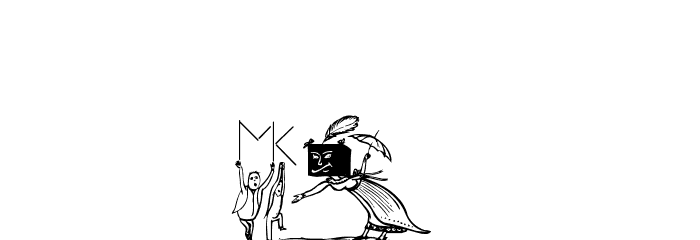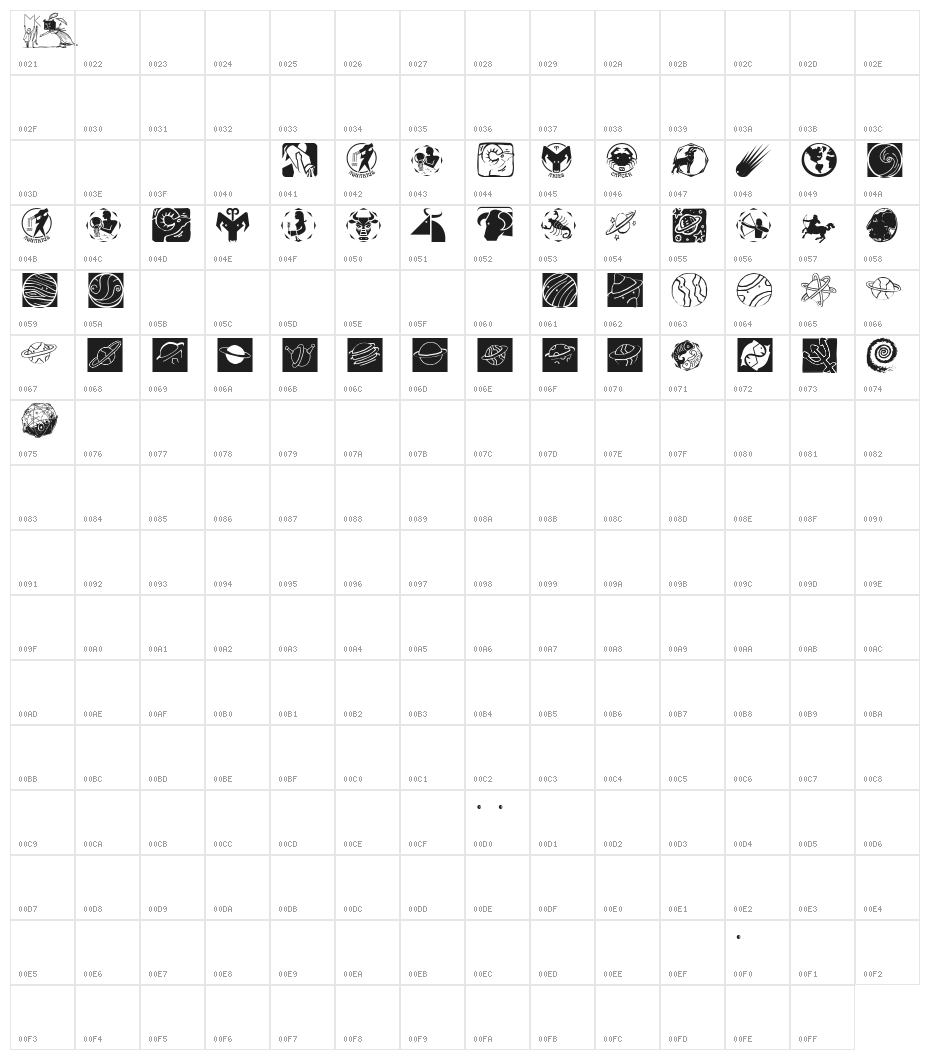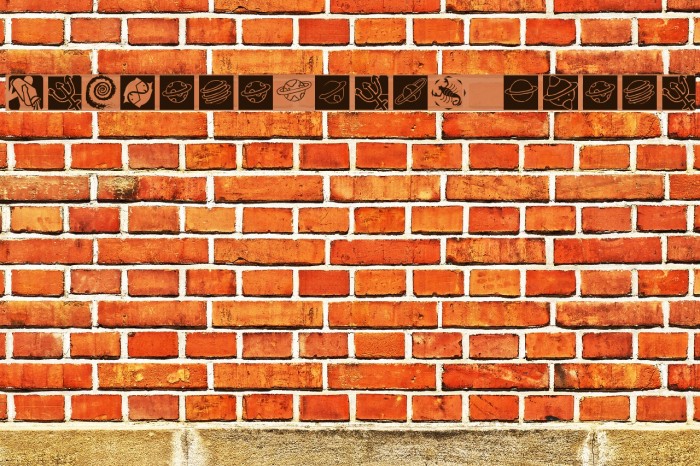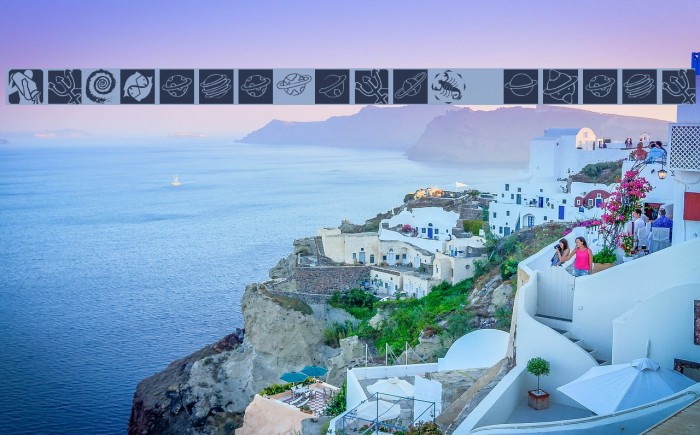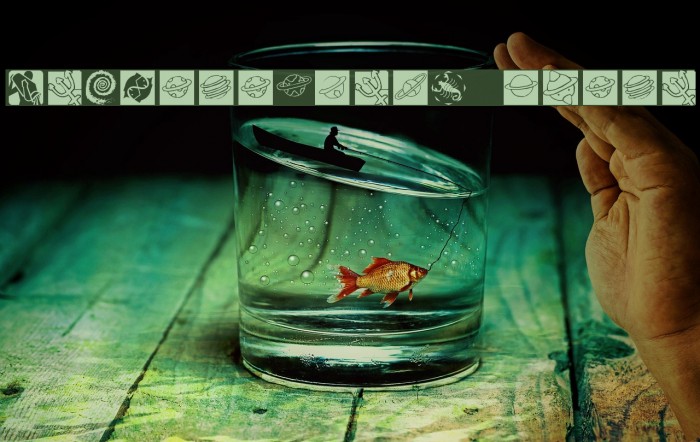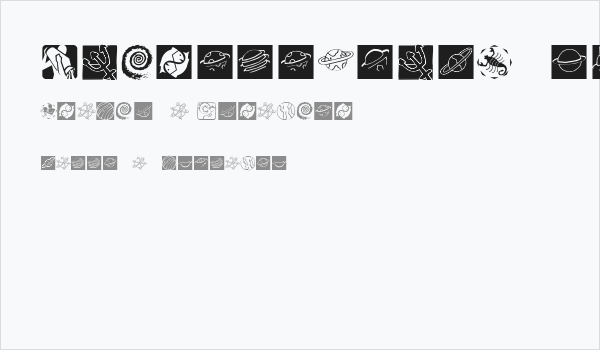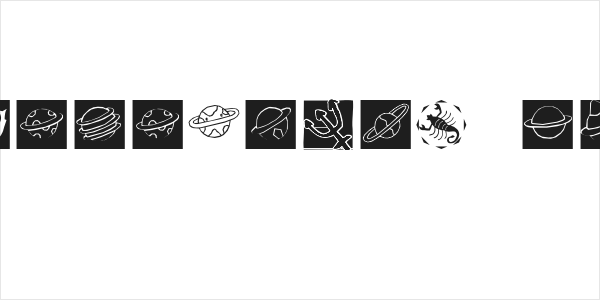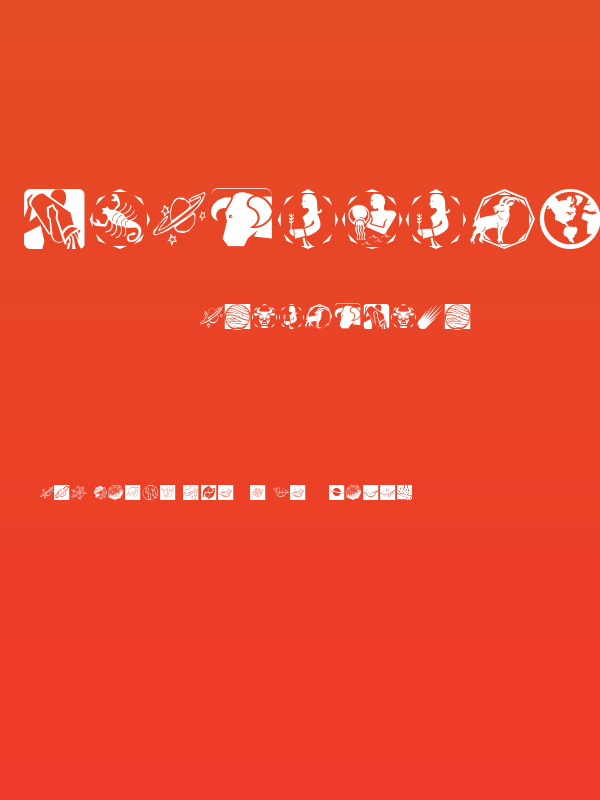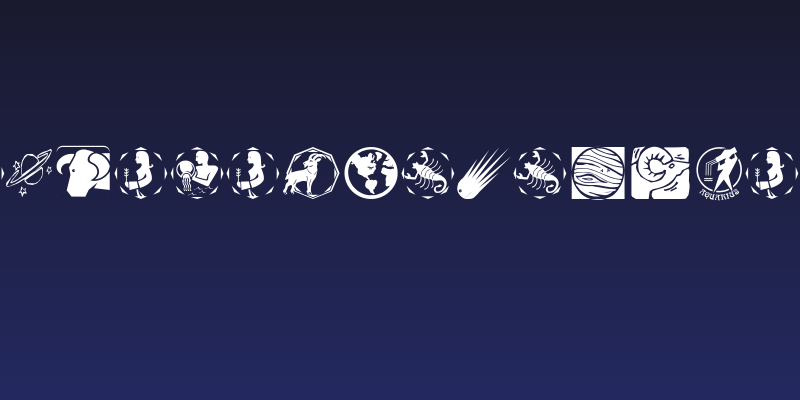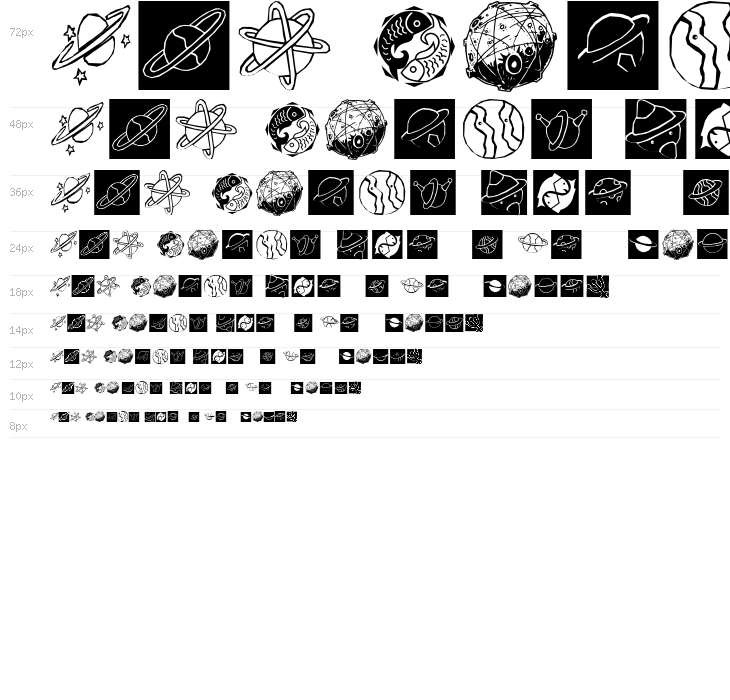
AstrologishSymbols Font
AstrologishSymbols Description
A decorative dingbat font featuring a variety of astrological, zodiac, planetary, and cosmic-themed symbols, each enclosed in circular or square frames with both filled and outline styles. The glyphs are highly illustrative, with detailed linework and whimsical, hand-drawn qualities.
Overall StyleDecorative, Whimsical, Thematic
Use CaseIcons, Decorative elements, Themed graphics
Proposed ProjectsAstrology websites, horoscope columns, themed party invitations, educational materials, posters, and decorative print projects.